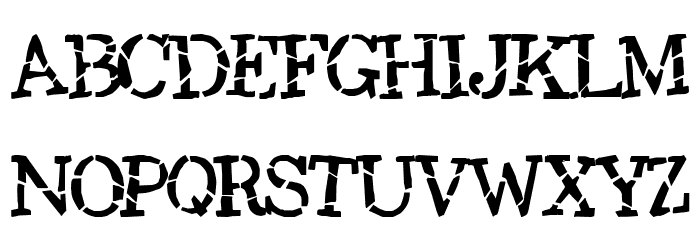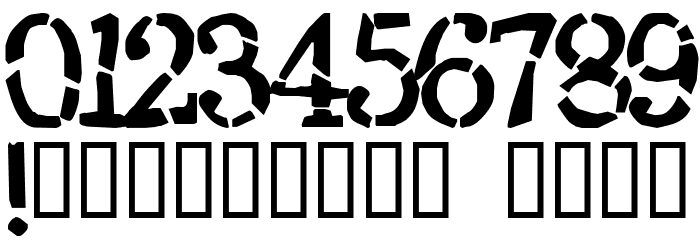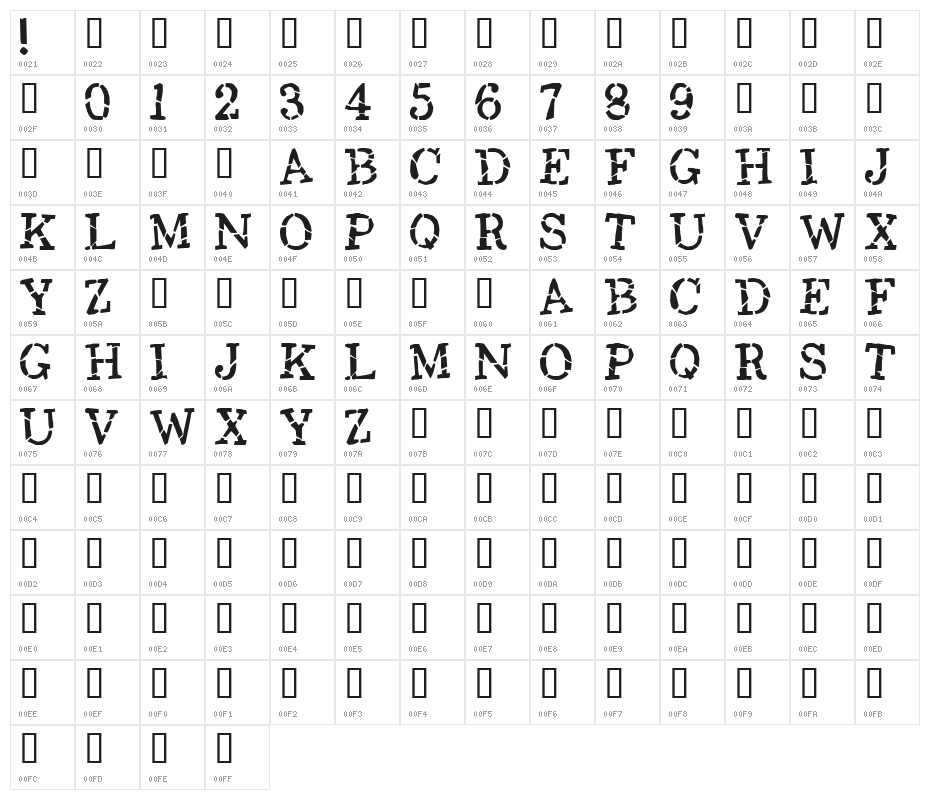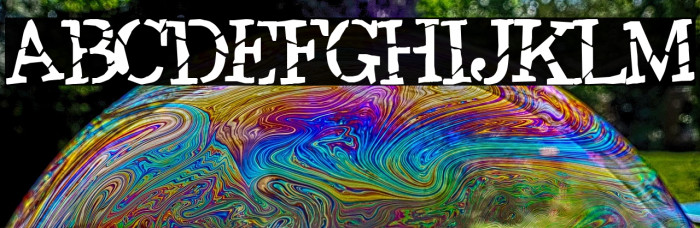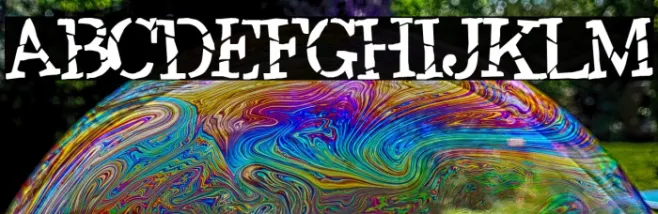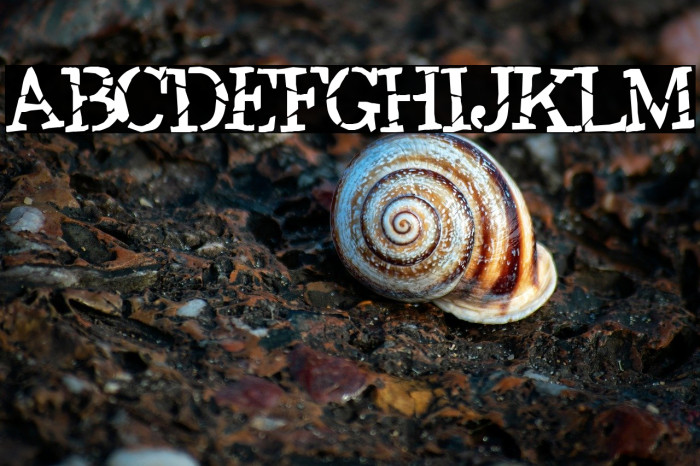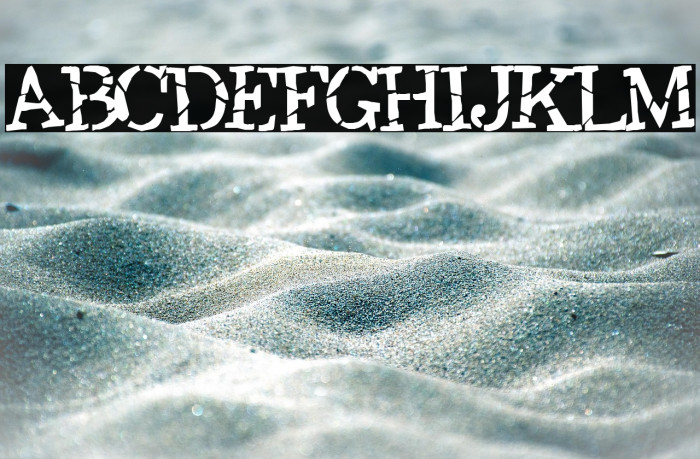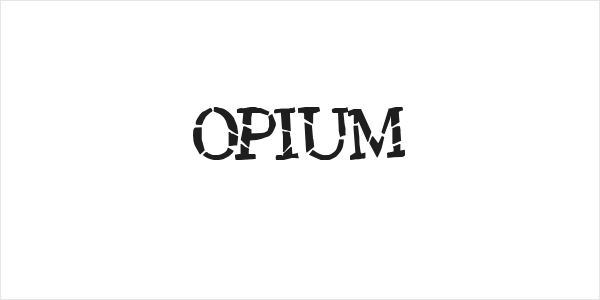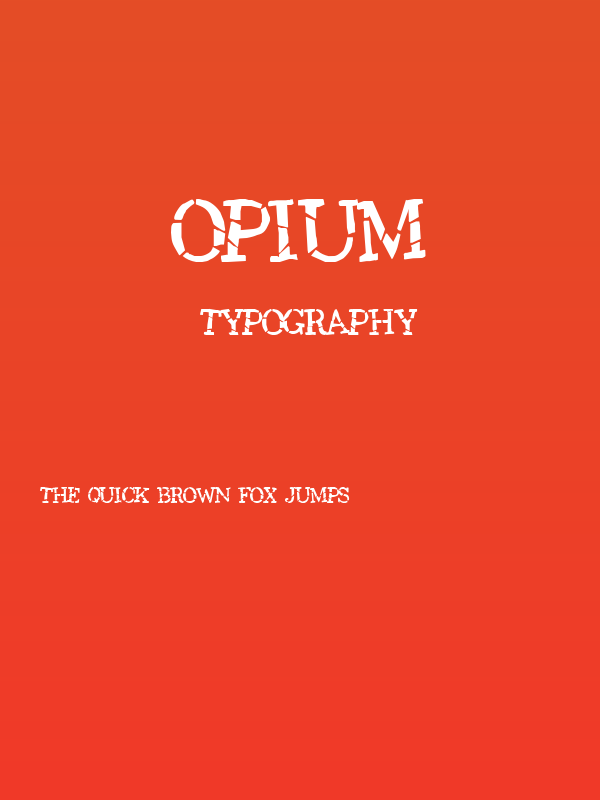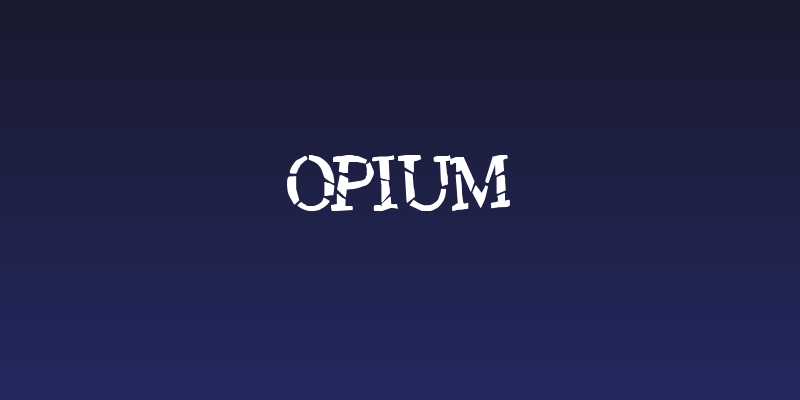
Opium Font
This font features a bold and distinctive stencil style, characterized by its fragmented and geometric letterforms. The uppercase letters are robust and angular, with sharp edges and a sense of industrial design. The numbers follow the same aesthetic, providing a cohesive look throughout. The font's unique cut-out design gives it a rugged and edgy appearance, making it stand out in any design project. The special characters maintain the same boldness and fragmented style, ensuring consistency across all glyphs.
A bold, stencil-style font with fragmented, geometric letterforms.
- Font: Opium
- Proposed Projects: Ideal for military-themed designs, industrial branding, posters, and urban streetwear graphics.
- Overall Style: Modern, Industrial
- Use Case: Logos, Posters, Branding